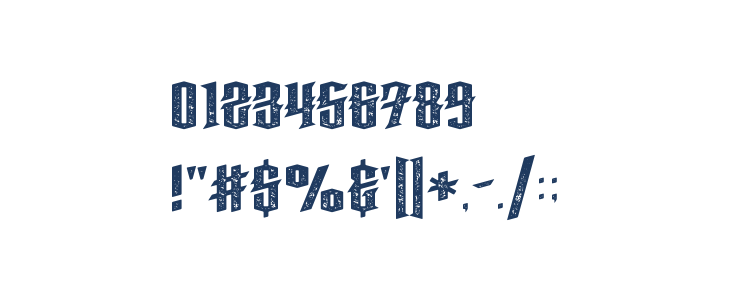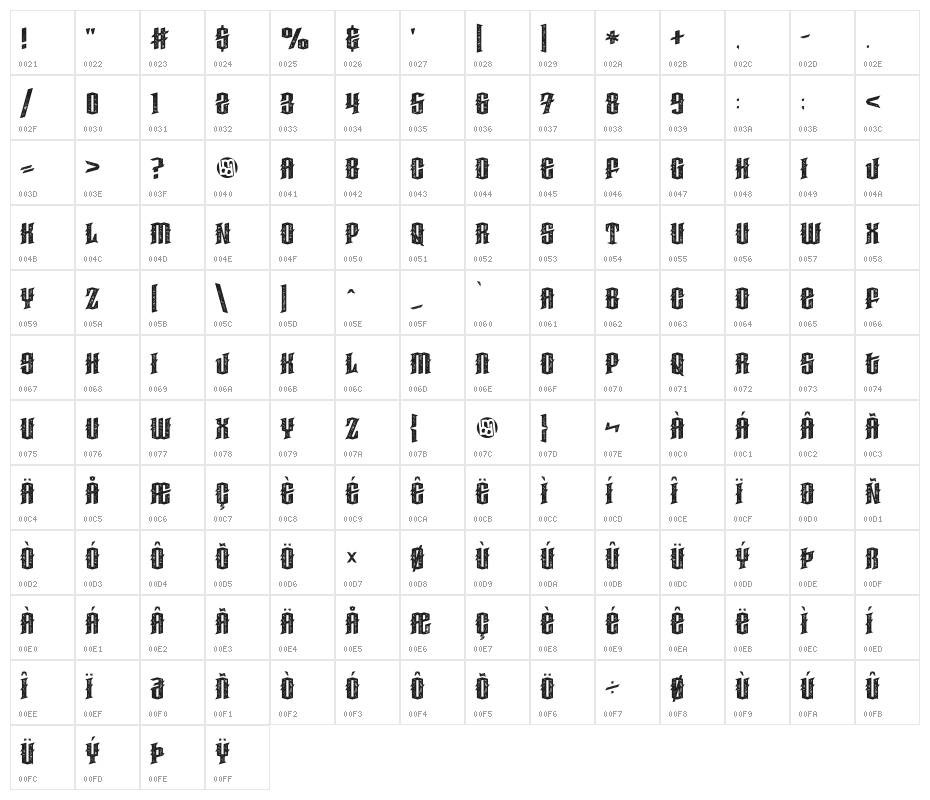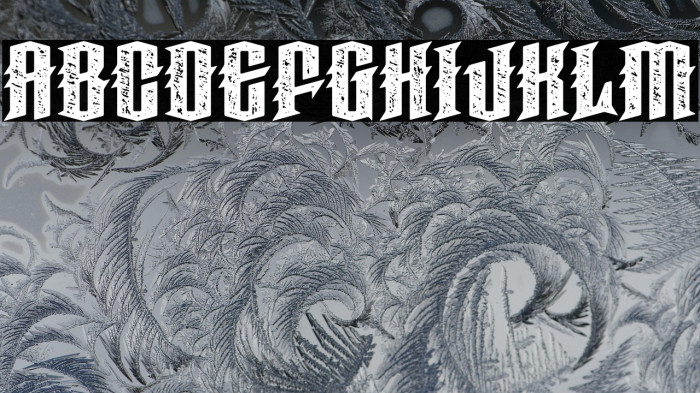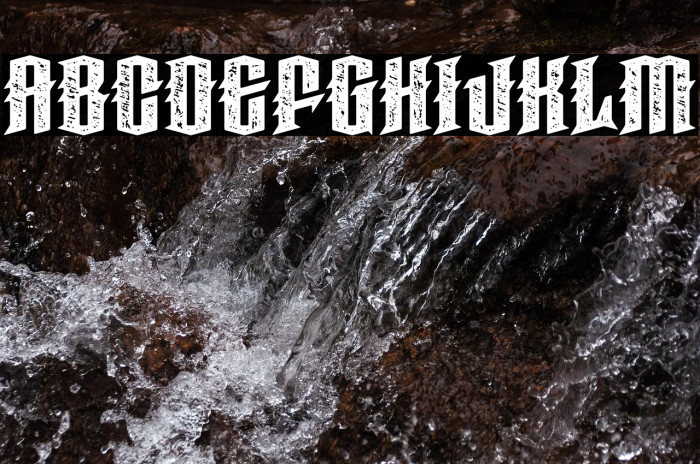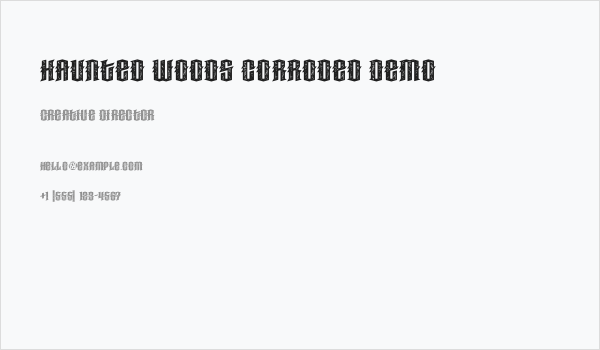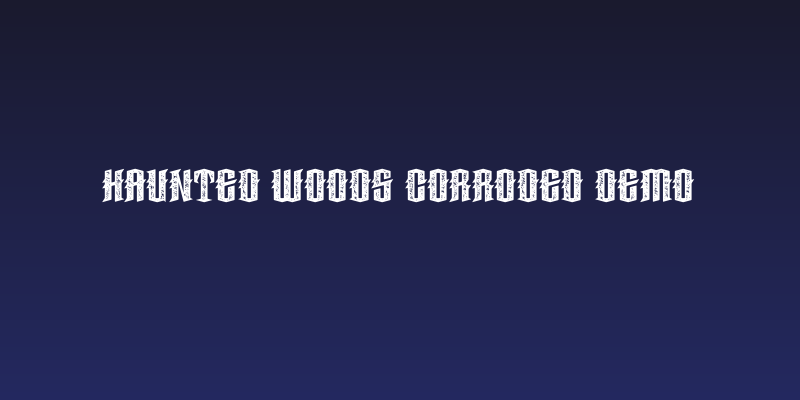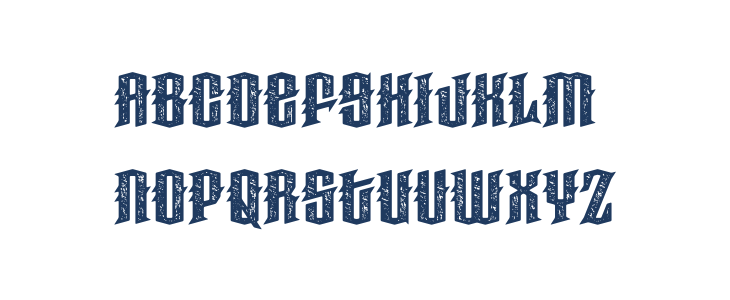
Haunted Woods Corroded Demo Font
Haunted Woods Corroded Demo Description
This font exudes a haunting and eerie aesthetic, characterized by its corroded and distressed appearance. The letters are bold and angular, with jagged edges and a textured surface that mimics the look of decaying wood or rusted metal. This design choice gives the font a distinctly spooky and unsettling vibe, perfect for themes related to horror or the supernatural. The uppercase and lowercase letters maintain a consistent style, with numbers and special characters following suit, ensuring a cohesive look across all text elements. The font's unique style makes it stand out, capturing attention with its dramatic and gothic flair.
Overall StyleGothic, Spooky, Distressed
Proposed ProjectsIdeal for Halloween-themed projects, horror movie posters, haunted house flyers, and spooky event invitations.